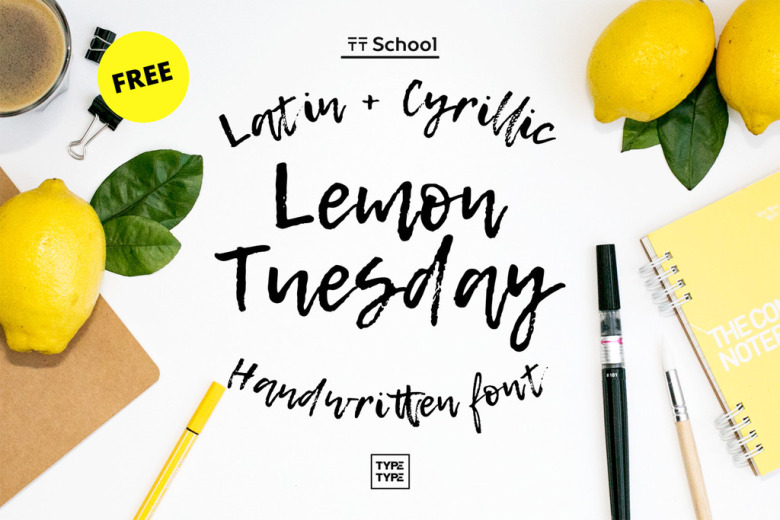
Lemon Tuesday Font
Lemon Tuesday is a high quality Handwritten font that is designed by Jovanny Lemonad and is available for free download personal & commercial use. The free version provides all uppercase and lowercase letters and a few special characters too.
Lemon Tuesday Handwritten Font